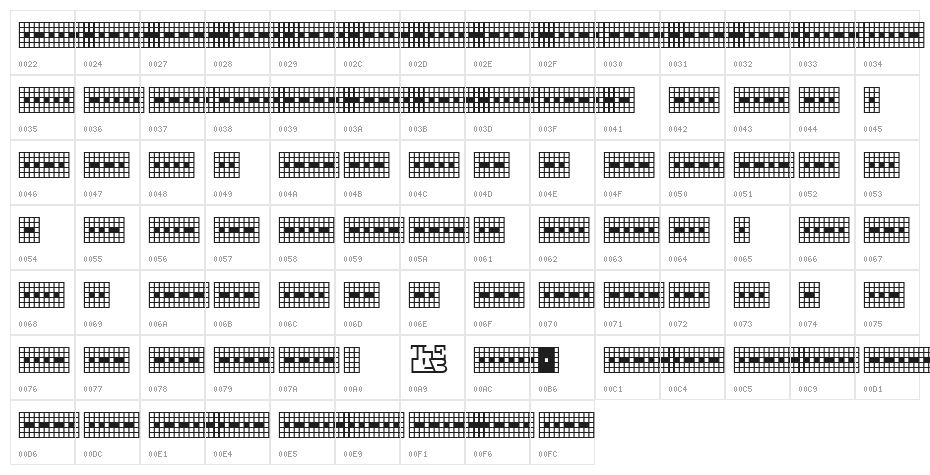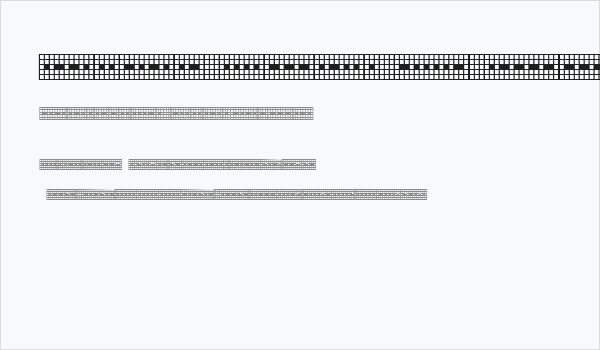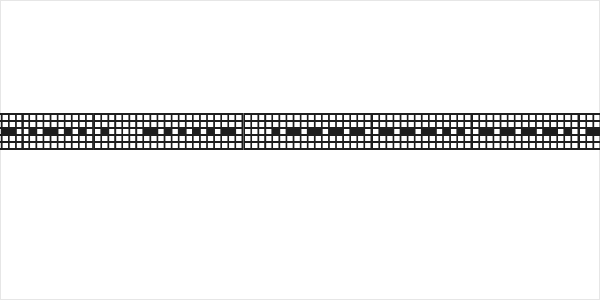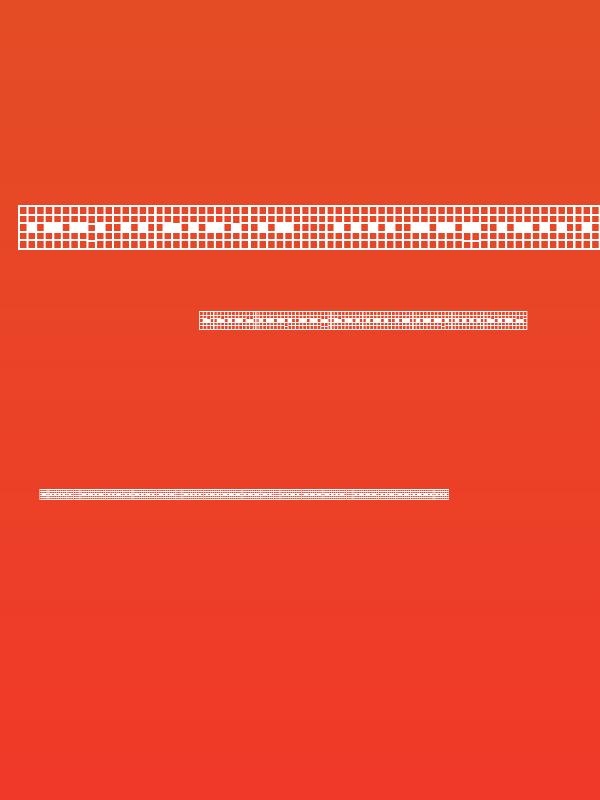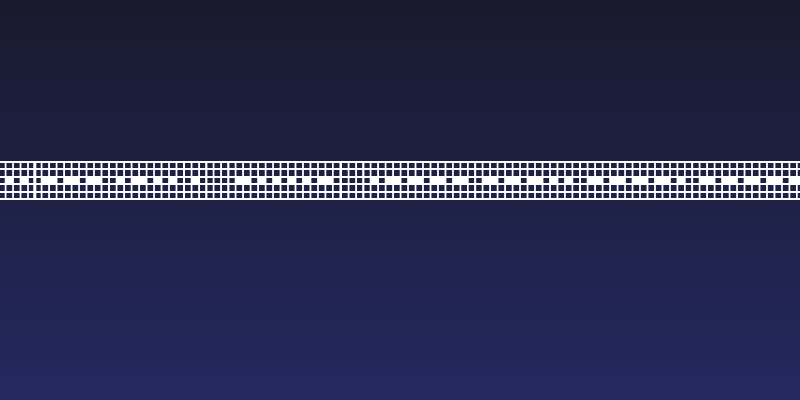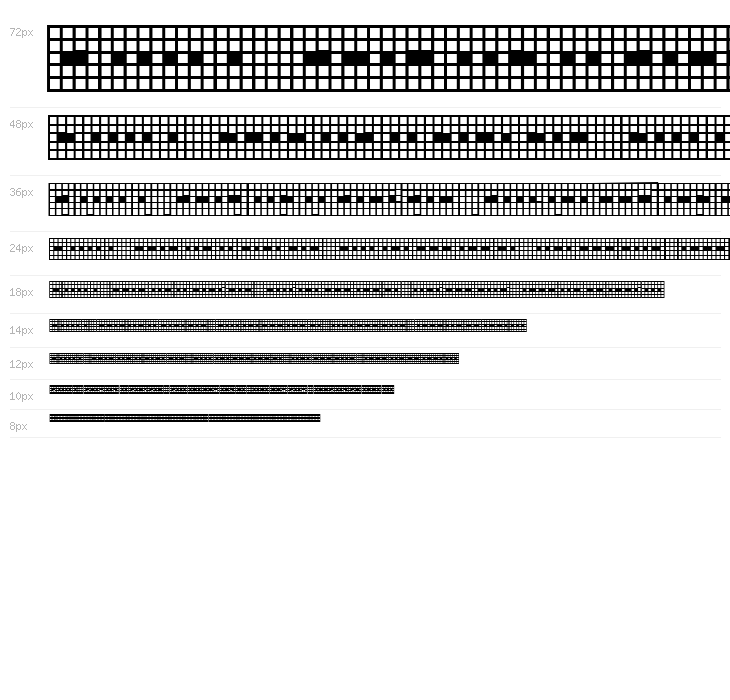
Pica Hole - 1890 Morse Font
Pica Hole - 1890 Morse Description
A highly geometric, grid-based design where each character is represented by a pattern of filled and empty squares, resembling a punch card or Morse code tape. The style is entirely modular and abstract, with no traditional letterforms visible.
| Overall Style | Decorative, Retro, Experimental |
| Use Case | Logos, Posters, Thematic headlines, Art installations |
| Proposed Projects | Retro tech posters, data visualization art, experimental design, educational materials about Morse code or early computing. |